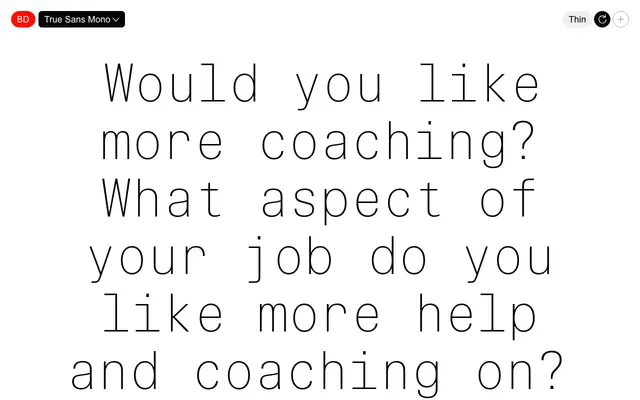
True Sans Mono
A monospaced sans companion to the True Sans family, available in at least a Thin weight.
True Sans Mono is the fixed-width variant of Bold Decisions' True Sans family, designed for contexts requiring uniform character spacing such as code or tabular data. The page indicates a Thin weight, though the full weight range is not fully documented in the available copy. Published by Berlin-based foundry Bold Decisions.
A monospaced variant within the True Sans family, categorised as mono due to its fixed-width character spacing and sans-serif letterforms.